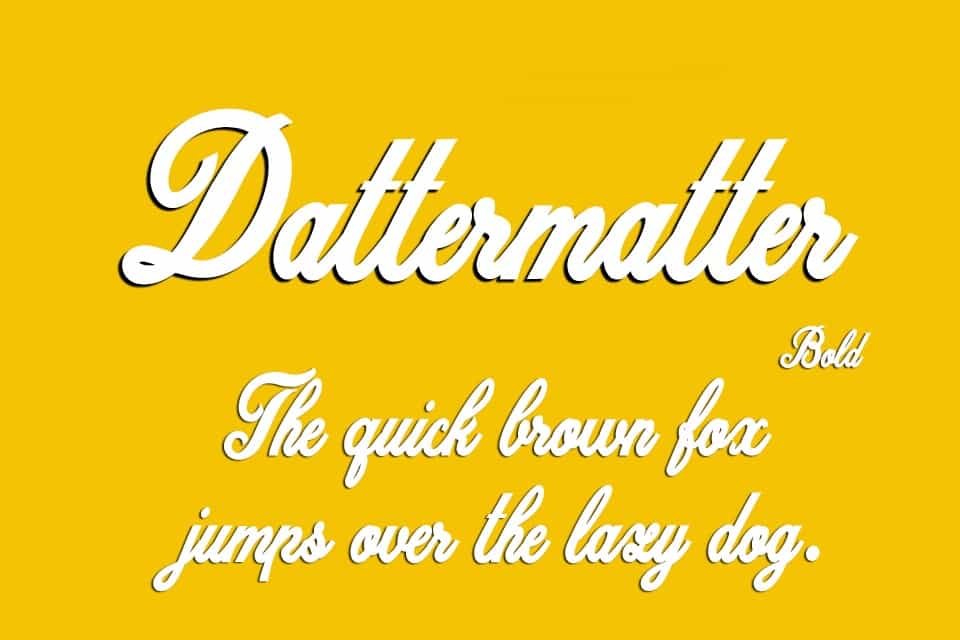
Discover Dattermatter Font, part of the Calligraphy collection—a versatile and unique font perfect for adding a personal touch to your projects. Download it for free and enjoy crafting designs with style, from invitations to social media posts. This font is available exclusively for personal use, giving you the freedom to create without limits. Unlock your creativity with Dattermatter Font today!